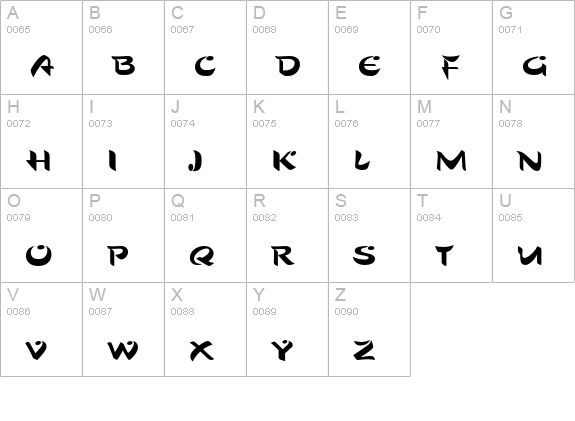
Sho Roman Font Details
Sho Roman is a stylish and elegant font that exudes sophistication and professionalism. With its clean lines and classic design, this font is perfect for any project that requires a touch of elegance. From logos and branding to invitations and headlines, Sho Roman adds a refined and timeless aesthetic to any design. What sets Sho Roman apart is not just its impeccable design, but also the fact that it is free to download. Yes, you read that right - this stunning font is freely available to download at FontsMarket.com. Whether you are a professional designer or a hobbyist looking to elevate your creations, Sho Roman offers you the opportunity to access a high-quality font without any cost. Downloading Sho Roman is as easy as a few simple clicks. Simply head over to FontsMarket.com and search for Sho Roman in the font library. Once you find it, click the download button and start incorporating this beautiful font into your projects immediately. Not only does Sho Roman provide you with a cost-effective solution, but it also offers versatility in its usage. This font is compatible with various design software and can be used across different platforms, making it accessible to a wide range of users. Whether you are designing a professional website, creating eye-catching social media graphics, or crafting elegant printed materials, Sho Roman will effortlessly elevate your work and leave a lasting impression. Its timeless appeal and free availability make it an exceptional choice for designers who are looking to make a statement without breaking the bank. So why wait? Download Sho Roman today and enhance your designs with this stunning and freely accessible font. FontsMarket.com is your go-to destination for high-quality fonts, and Sho Roman is just one of the many gems waiting to be discovered.